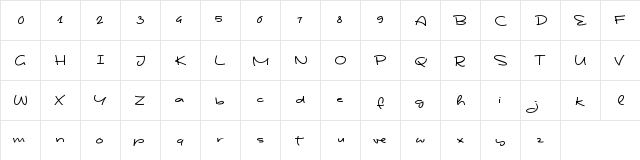
Shape Variable Script Regular
| Designer | Roland H߳e |
Design Context for Shape Variable Script Typeface
Shape Variable Script brings a calligraphic fluidity to the page — its connecting strokes and expressive curves give it an unmistakably human quality.
Font Pairing: Combine Shape Variable Script with a simple geometric sans for maximum contrast — the tension between flowing curves and clean structure is a classic typographic pairing.
Pro Tip: Use Shape Variable Script for short runs of text — names, titles, or taglines. Extended body copy in script faces tires the eye quickly.